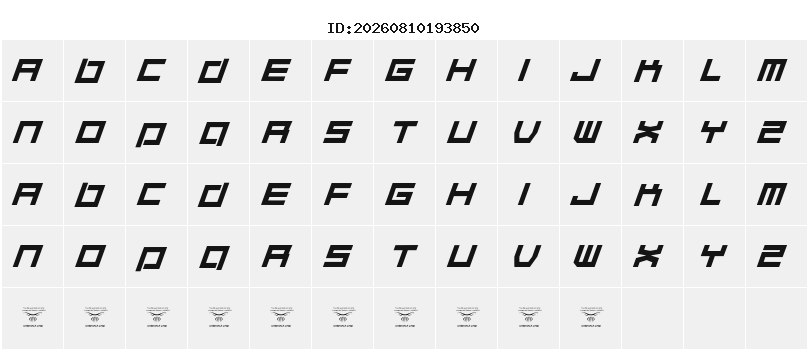
• Font Name: Quaalude hulk
• Full Font Name: Quaaludehulk-Italic
• Designer: Chris Vile
• Manufacturer: Font Monger
• Description: Quaalude hulk Italic is a font by Font Monger, designed by Chris Vile in 2015.
About Quaalude hulk.otf
Quaalude hulk.otf is a modern, elegant sans-serif font designed for ultimate readability and visual harmony. Perfect for branding, headlines, web design, and print materials.